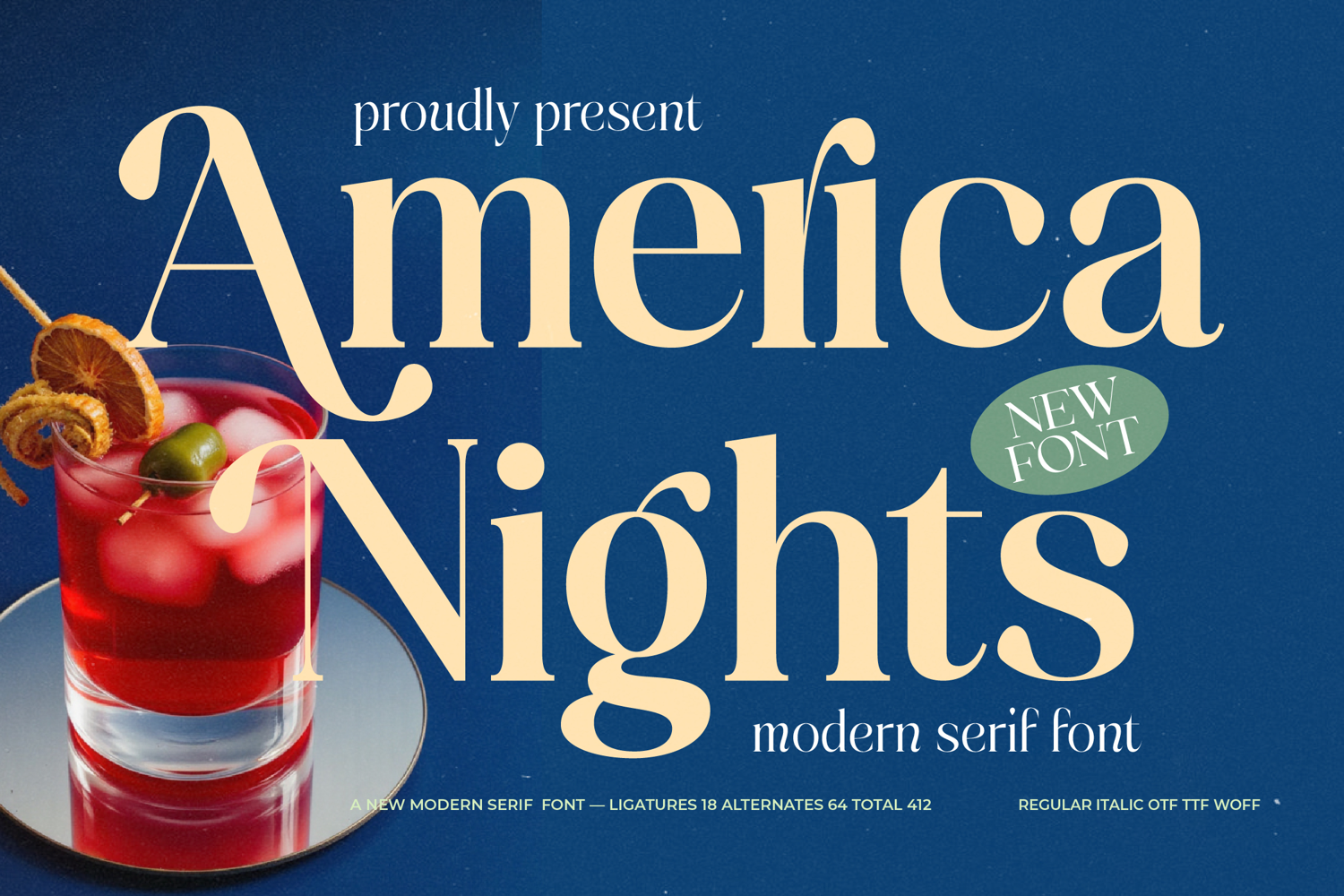
America Nights - Modern Serif Font
America Nights - Modern Serif Font, the definitive typeface for projects demanding modern elegance with a touch of classic display drama. Characterized by its high-contrast strokes—delicate thin lines juxtaposed against bold, generous curves—this font immediately conveys a sense of premium quality and intentional design. The swooping terminals and stylized ascenders are crafted to capture attention, making it the ideal choice for creating headlines that are both memorable and visually luxurious.